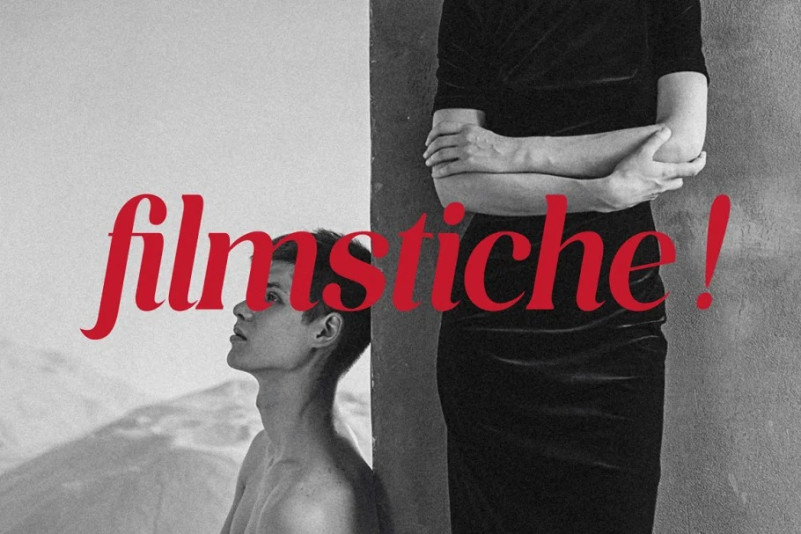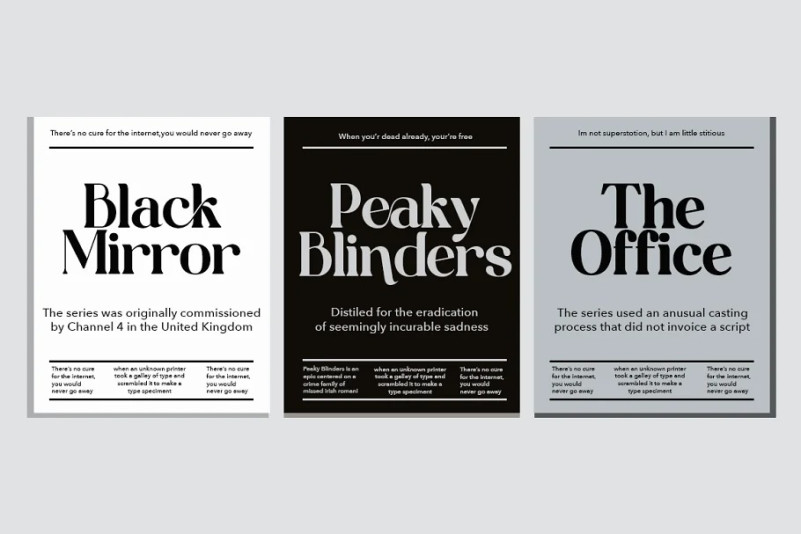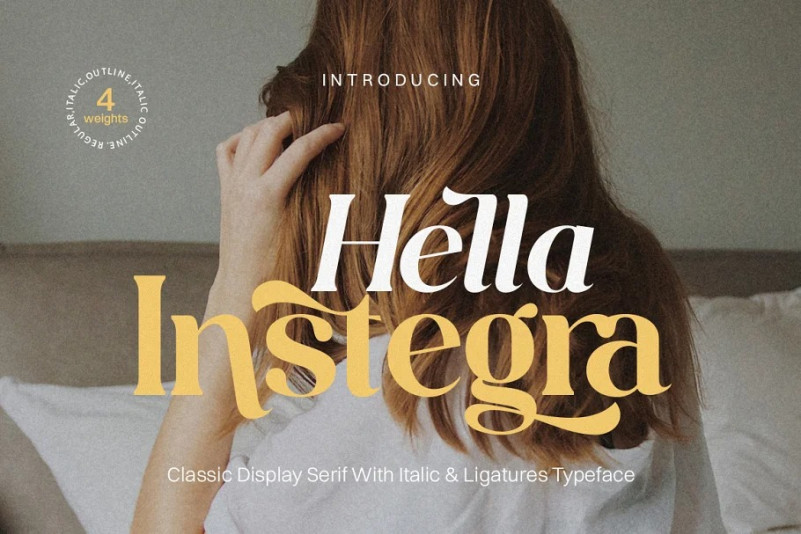
Hella Instegra Font
Hella Instegra Font is a stylish font It has both modern and retro look – clear, modern and fun. Helps to create layout design in 60s or 70s design projects. This font have more than 150 unique alternate and 59 ligature that to give your logo,business card and another project to a unique vintage look. It has Italic and Outline version too so what a perfect vintage font!